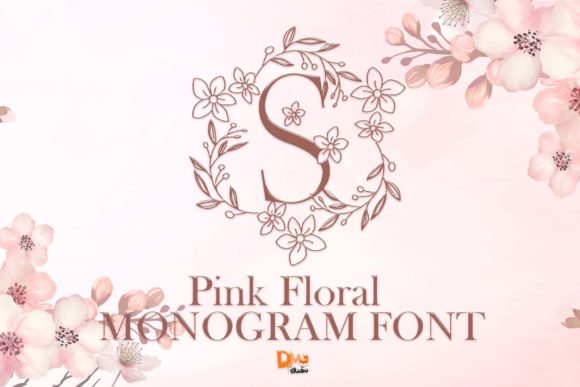
Prepare yourself to be mesmerized by the Pink Floral Monogram Font, a calligraphic masterpiece that exudes charm and elegance. This decorative font is not just a collection of letters but an artistic expression that will transform your creative projects into enchanting works of art.
Indulge in the beauty of this font, meticulously crafted with delicate floral motifs that dance across each character, intertwining with intricate linework. The result is a symphony of visual delight, capturing the essence of love, joy, and celebration in every stroke.
Step into a world of endless possibilities with the Pink Floral Monogram Font. Design wedding invitations that bloom with romance, create personalized love letters that whisper sweet nothings, or embellish your scrapbook pages with memories that blossom forever.
This font is more than just a design element; it's an emotion weaver, a storyteller that brings your words to life. Whether you're a seasoned designer or a creative soul just starting your journey, the Pink Floral Monogram Font will elevate your projects to new heights of artistry.